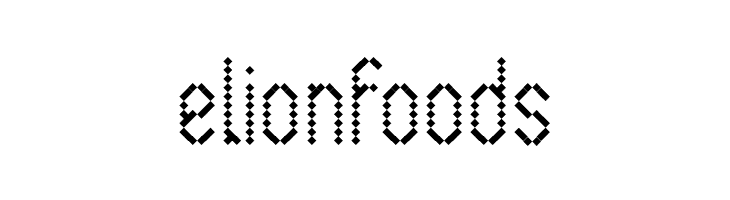
( Fonts by Emerald City Fontwerks )
An elegant and decorative font with diamond embellishments and unique numeral styling.
( Fonts by Daniel Gauthier )
A bold, playful font with diamond-shaped backgrounds and slight serifs.
A decorative font with characters designed as unique fish shapes within diamond frames.
Abstract and artistic representations resembling faces within diamond shapes.
A whimsical set of abstract, cave art-inspired symbols within diamond shapes.
A decorative font with diamond-shaped enclosures and star embellishments, offering a vintage and artistic style.